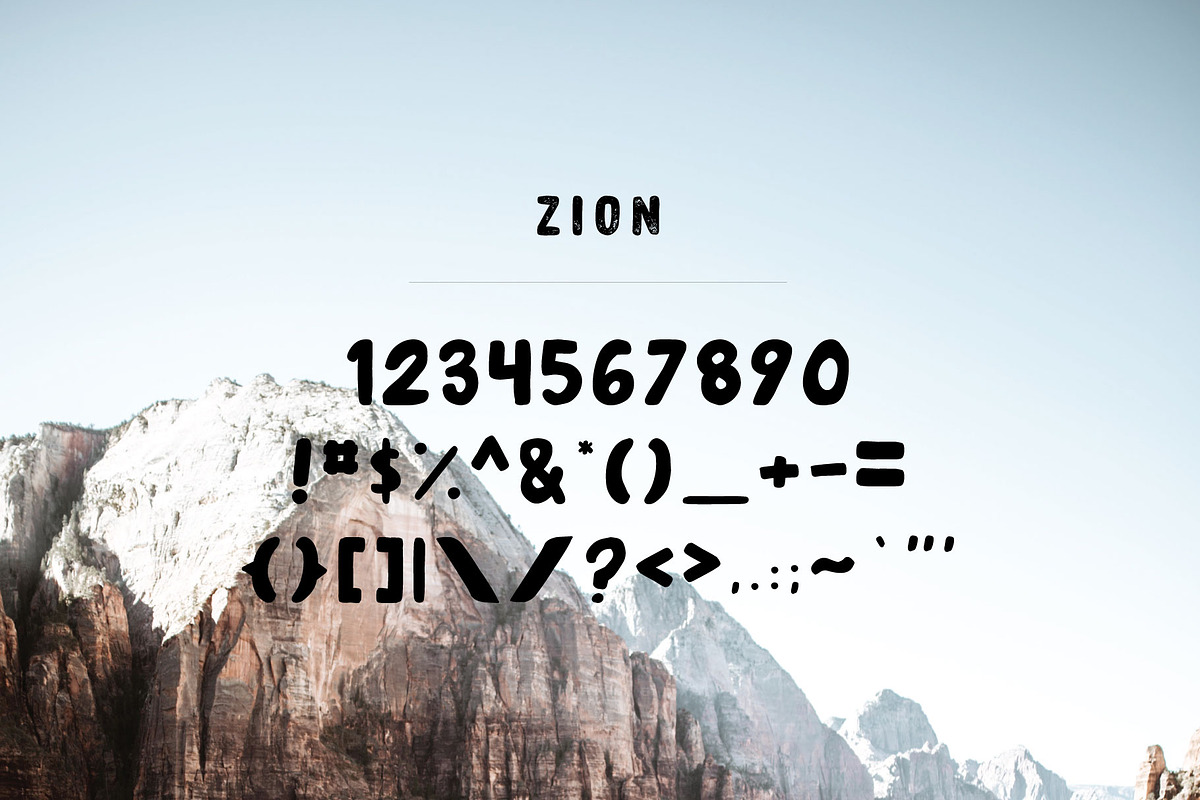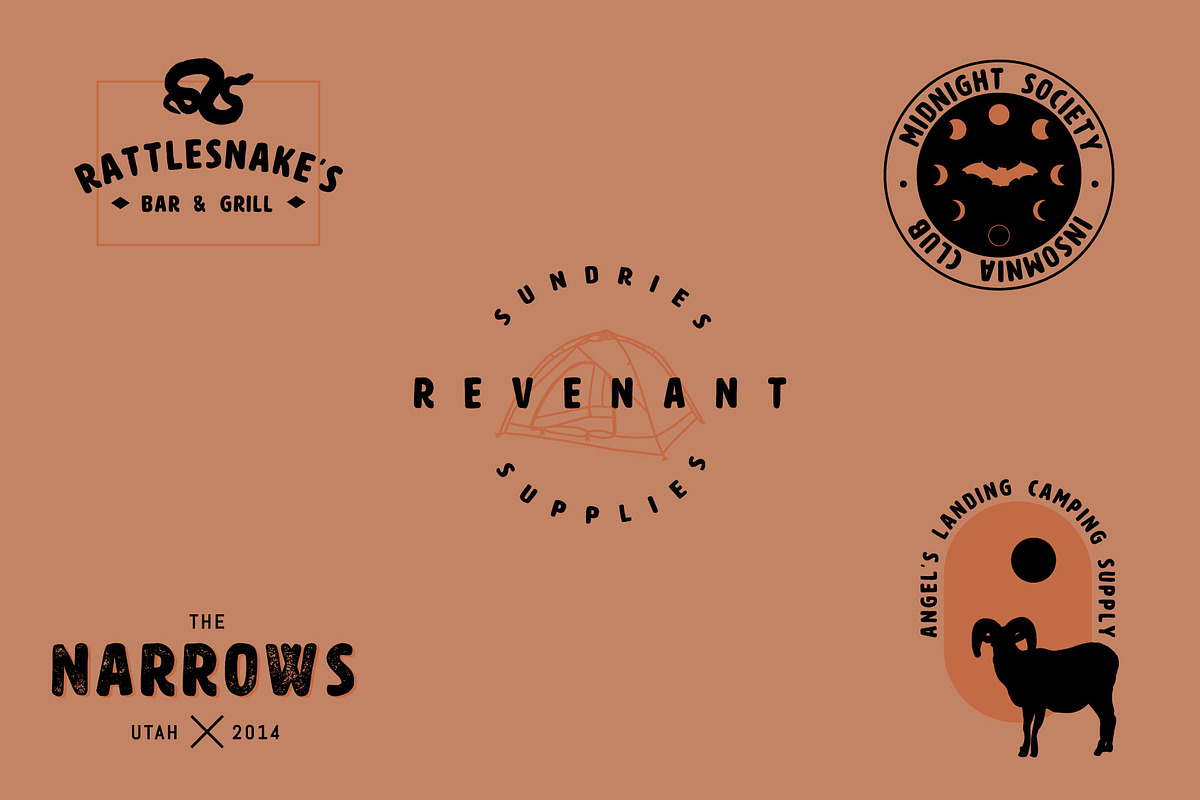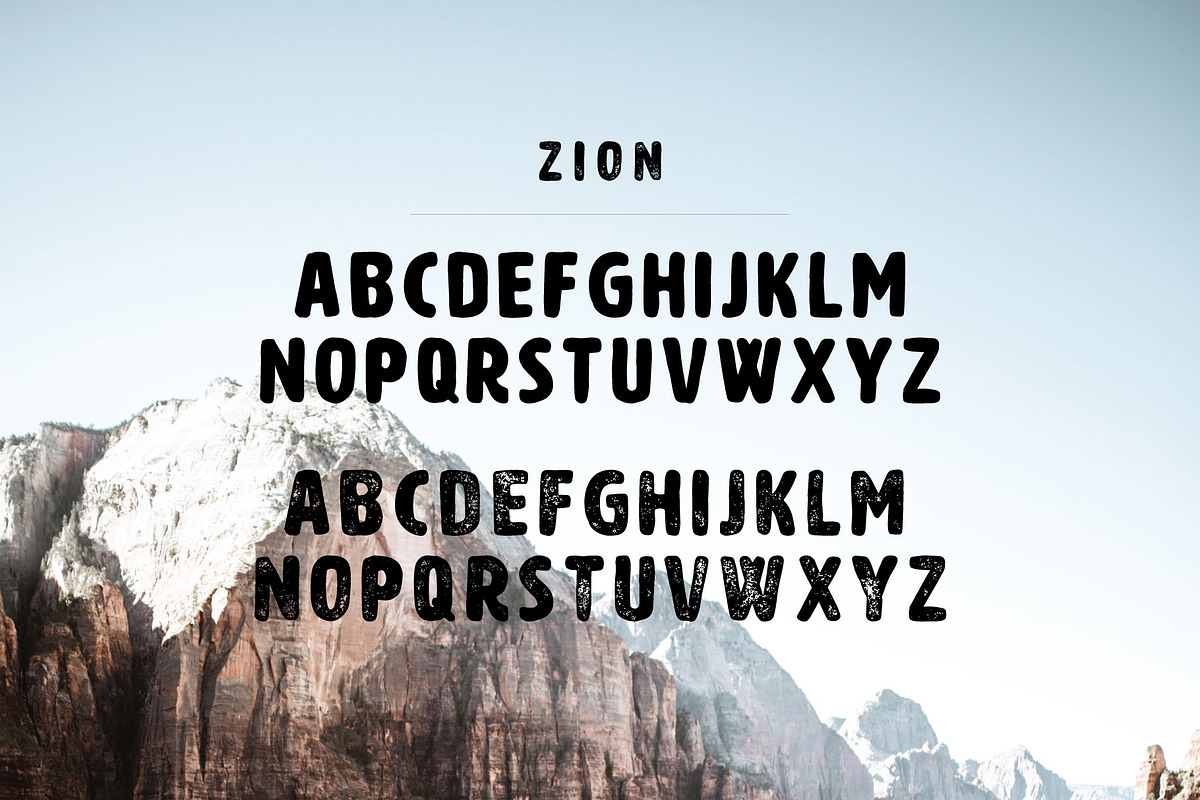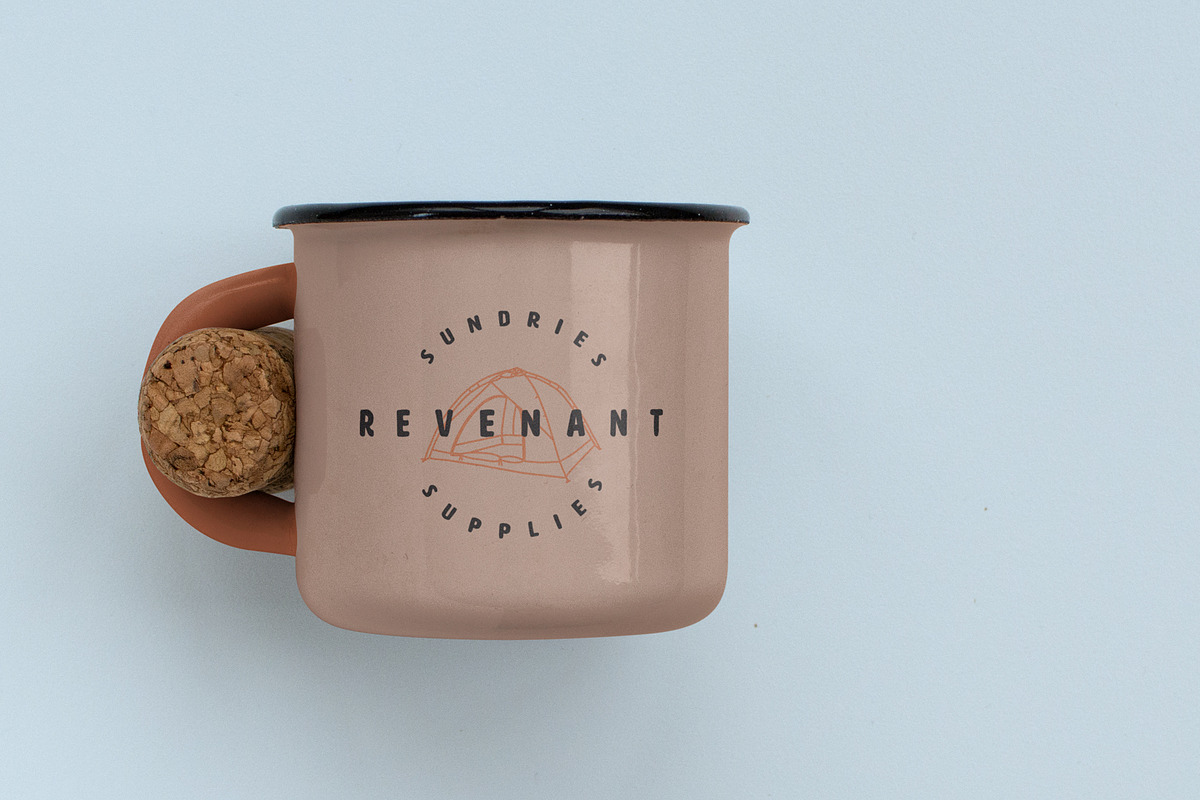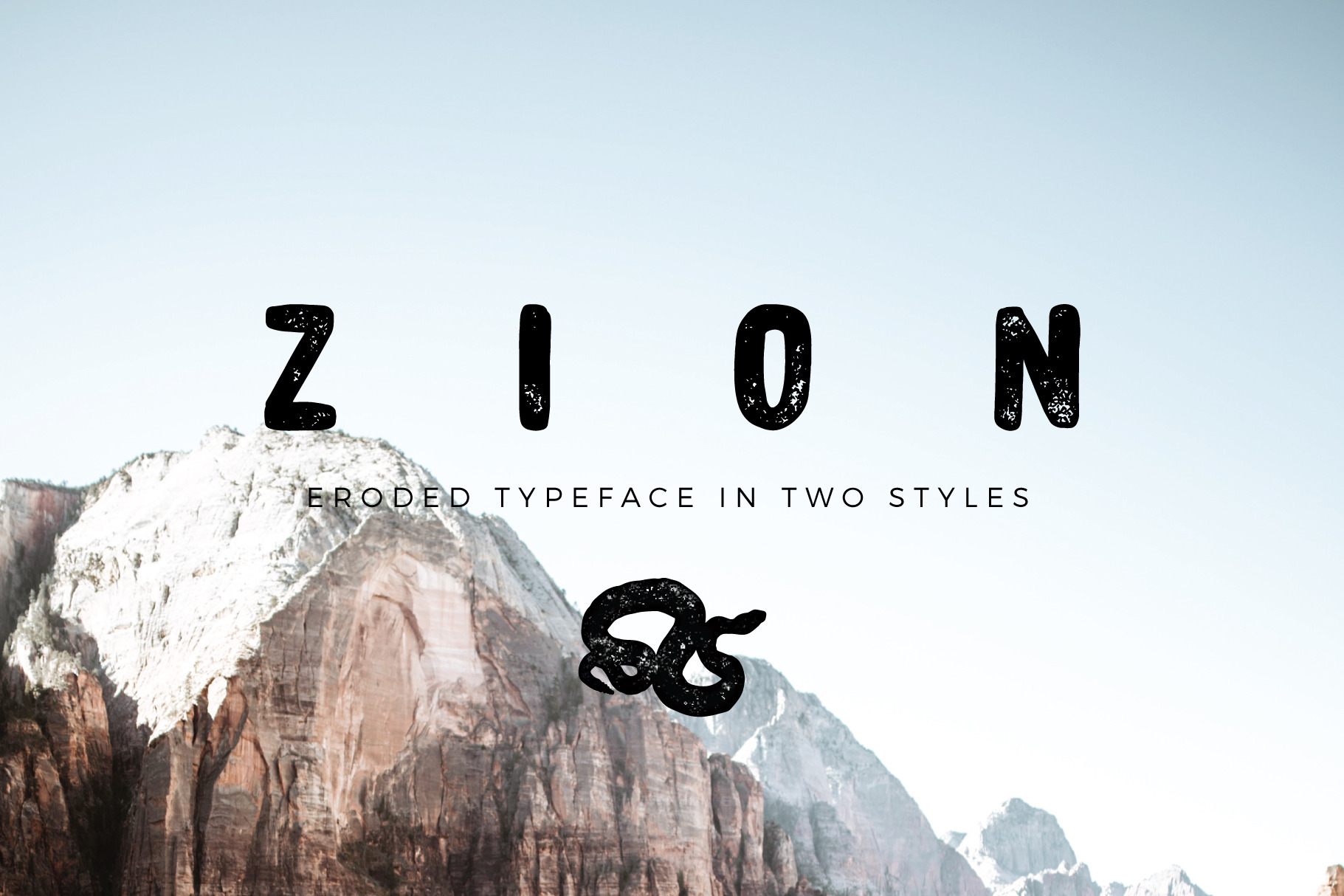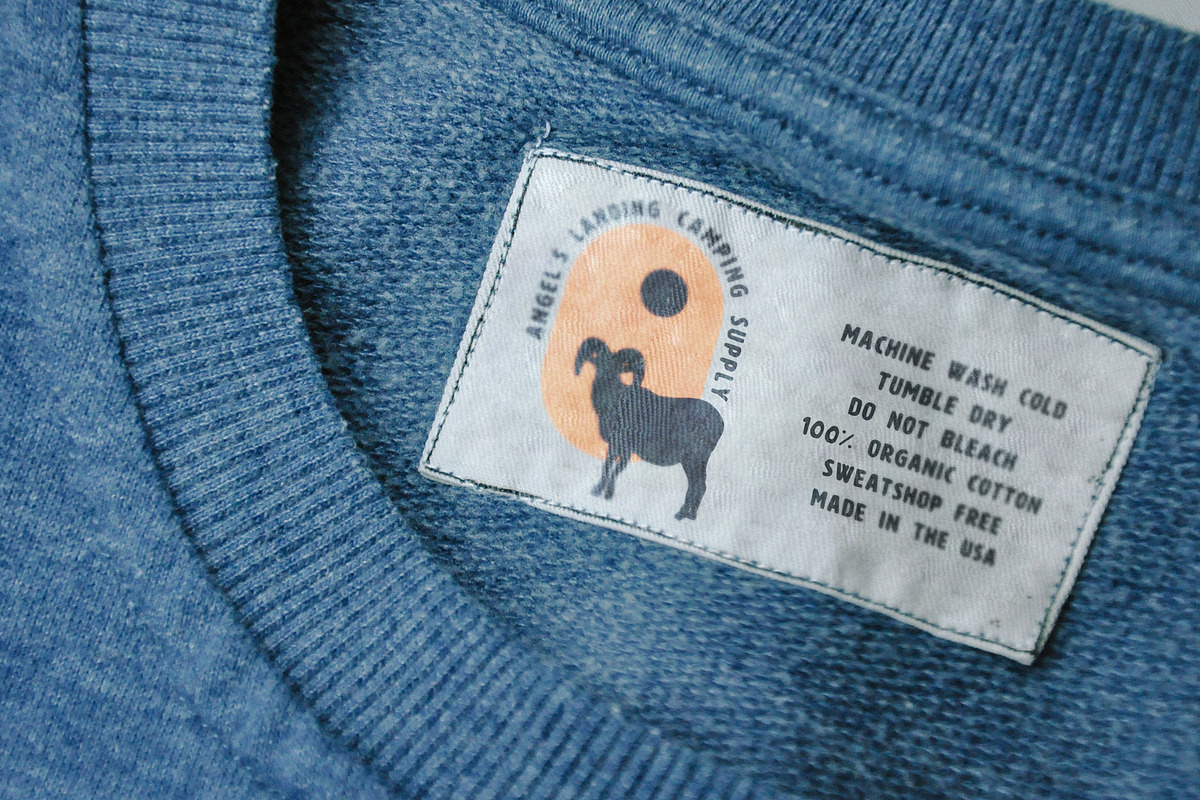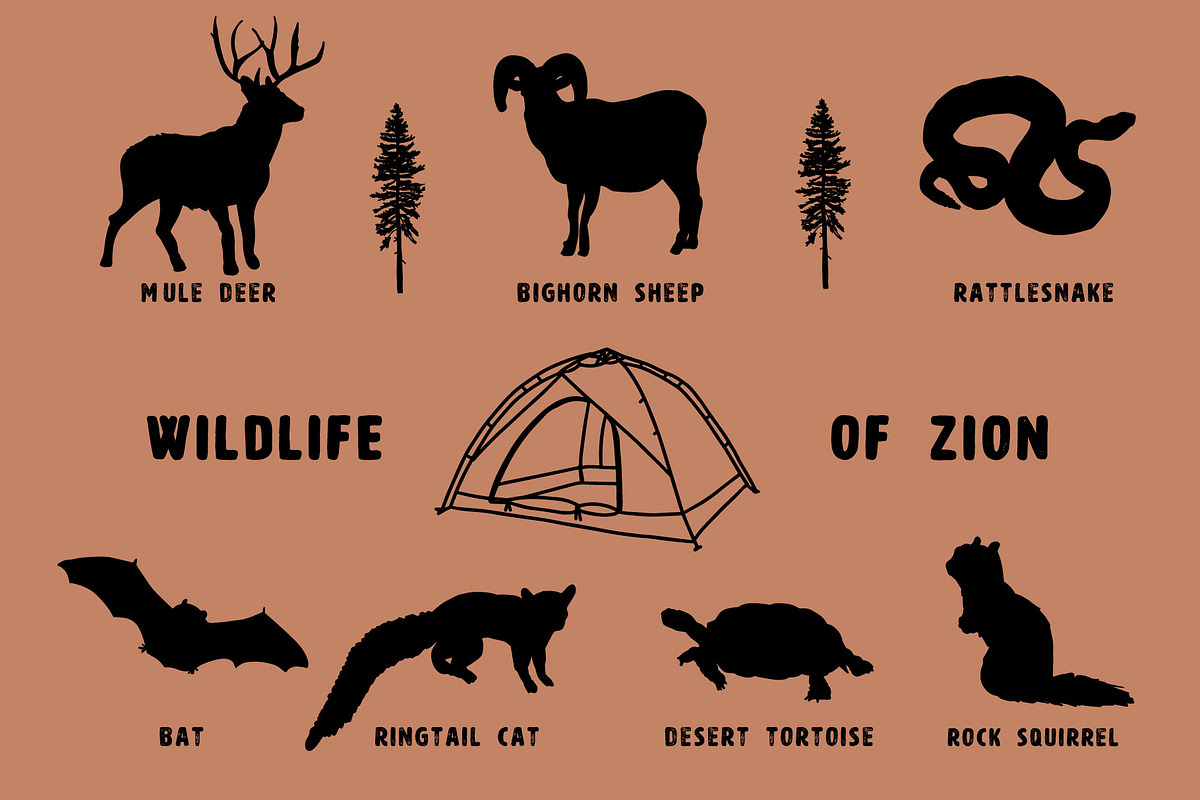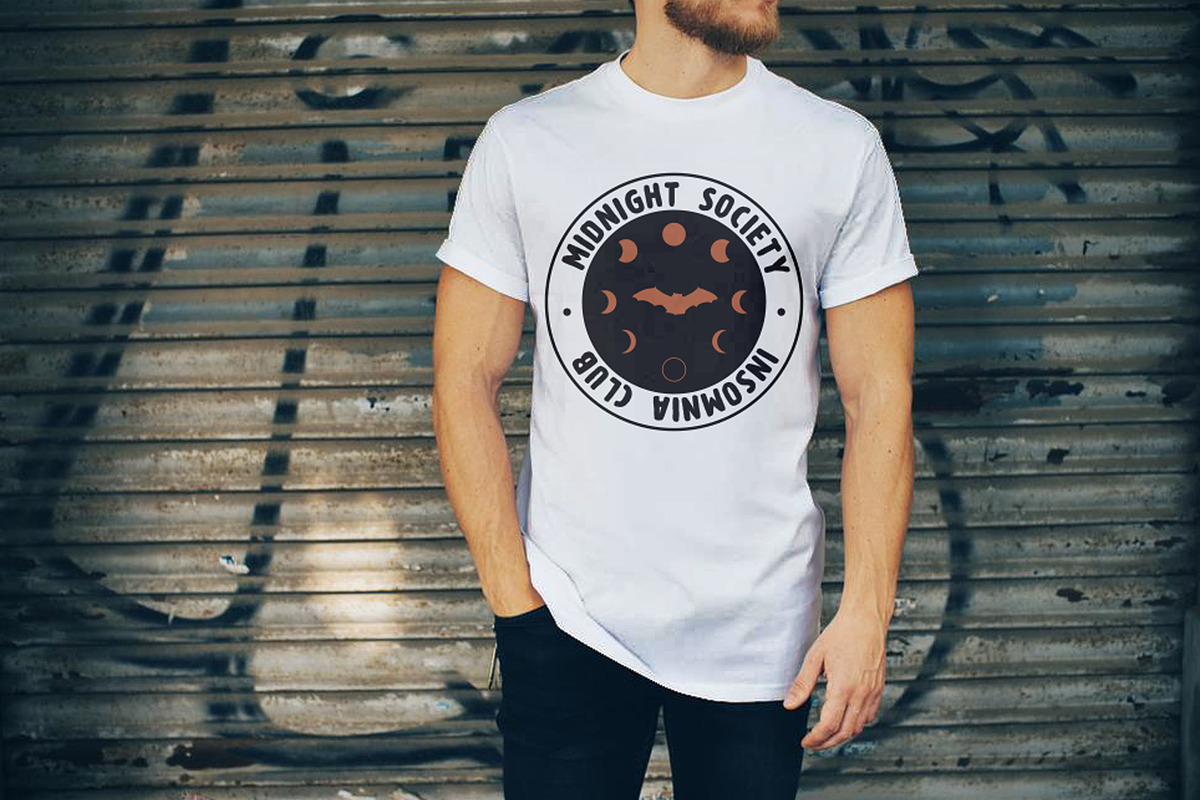
Zion Font + FREE Logo Badges!
ZION A hand drawn display font inspired by one of the great National Parks of the USA
Includes 9 hand drawn vectors and 5 fully customizable logos
A little rough, a little organic, Zion font evokes the rocky red cliffs and dusty mesas of my personal favorite National Park, Zion.